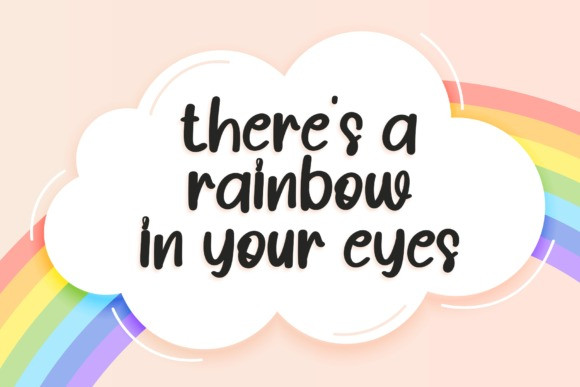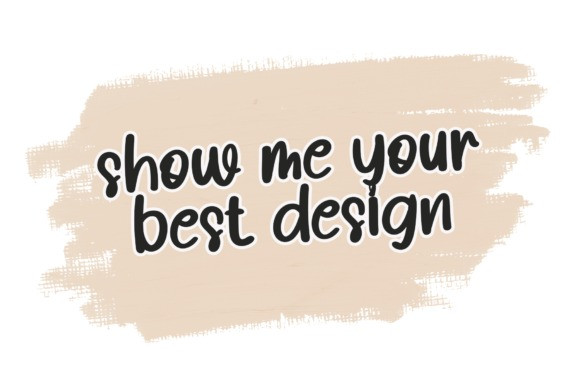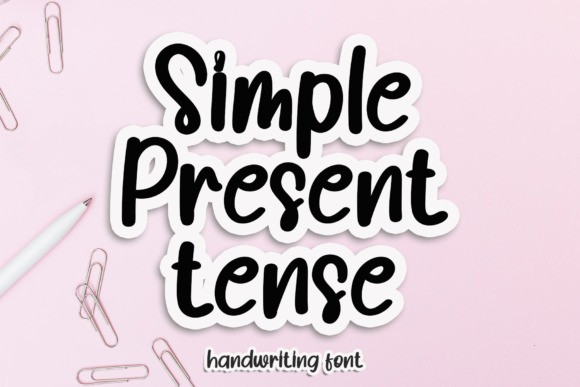
Simple Present Tense Font
Simple Present Tense Font is a stylish handwritten font with a contemporary atmosphere and impeccable form, inspired by timeless classic calligraphy. Balanced and varied, this font was designed to enhance the beauty of your projects.